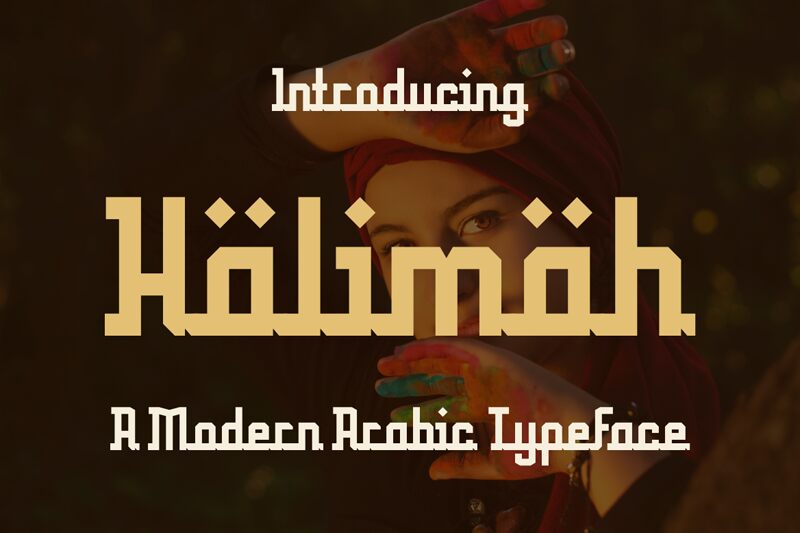
Halimah
Halimah font by Gilang Ternadho is a modern Arabic typeface with geometric shapes and monospaced dimensions. With an overall tech-inspired, condensed design, its characters may have a retro appearance when put together in words or lines. This free highly illustrative and decorative font is designed to attract viewers' attention at first glance where it can be optimally useful.
Various modern use cases are suitable for Halimah; advertising, branding projects, packaging, social media posts, magazines, posters, newspapers headers/titles, books covers/titles/headers, portfolios covers/titles/headers or otherwise architectural visualizations etc.